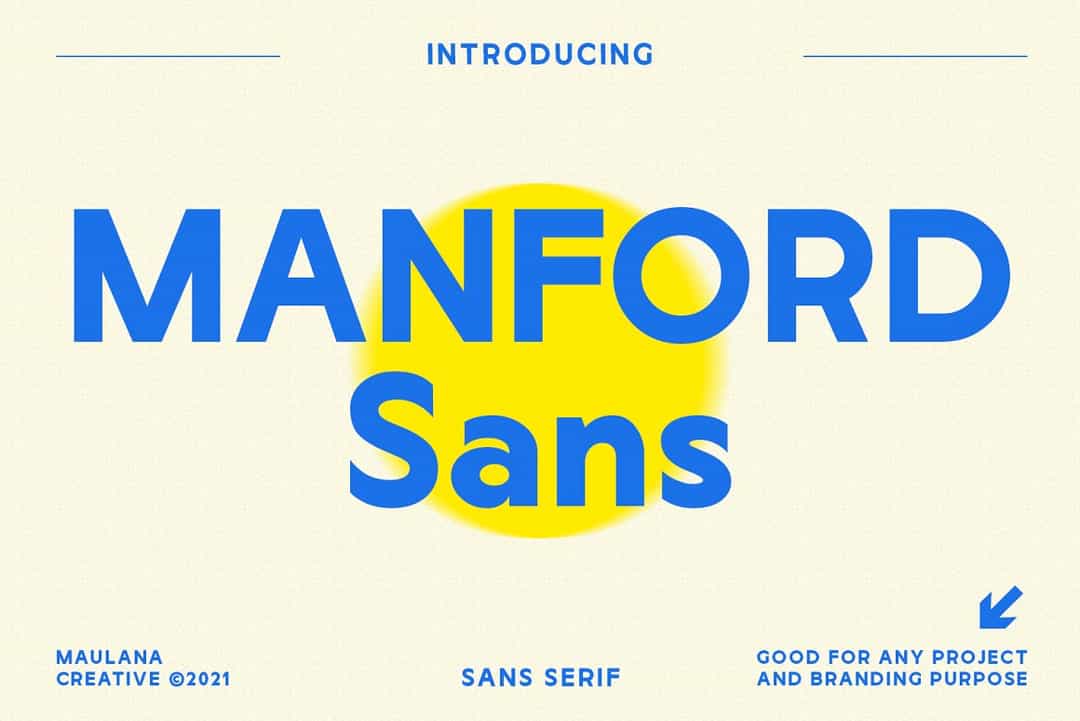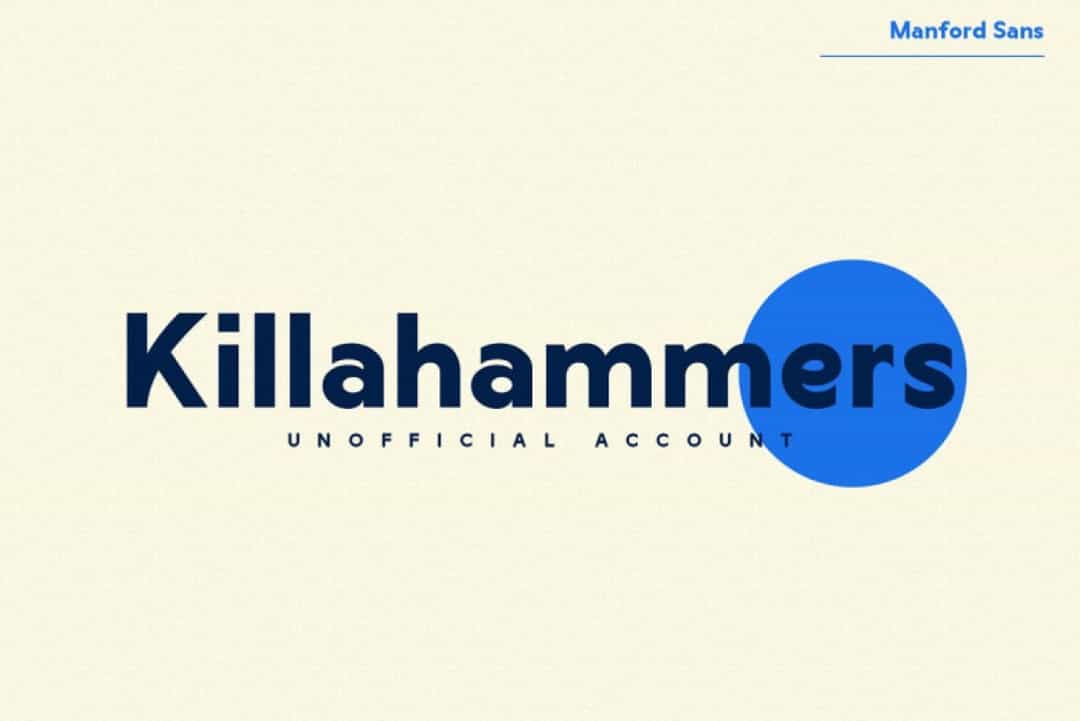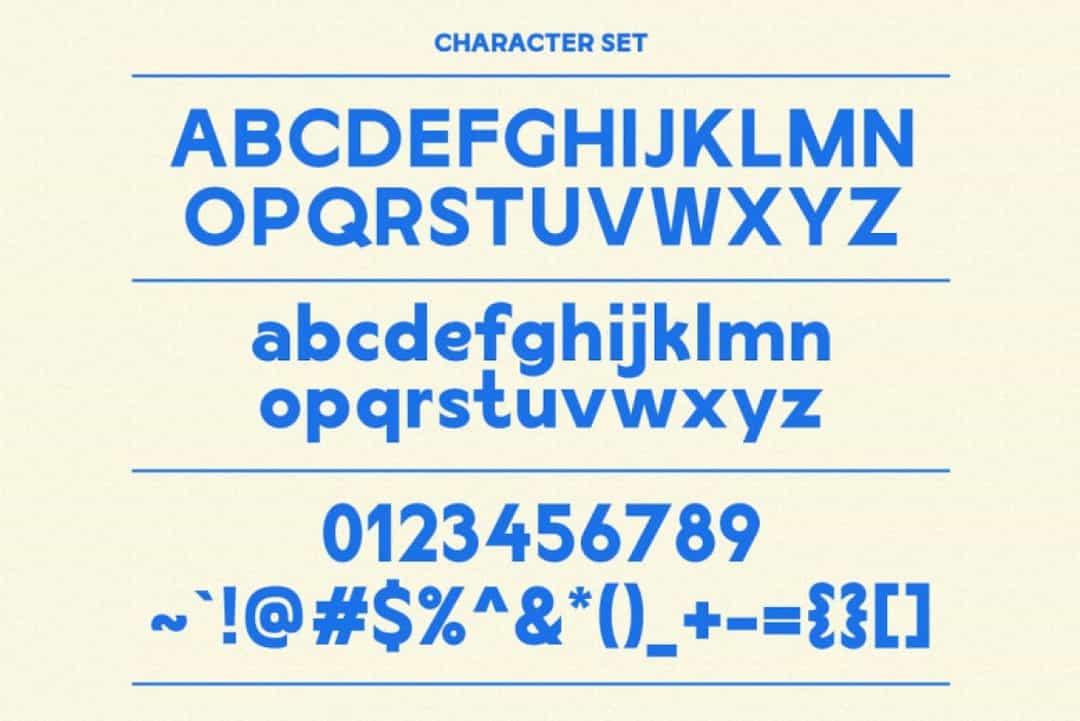
Manford Sans is an innovative sans serif font with striking weight and distinct character features, plus some ligatures to boost creativity in creative work. Multilingual support of over 100 languages complete the package!